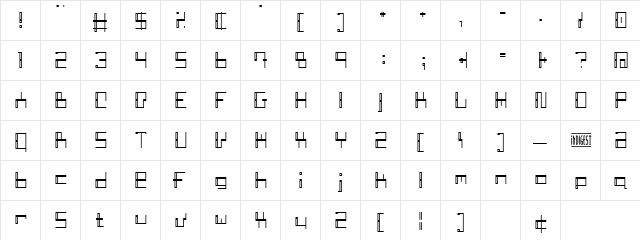
Stat Normal
Design Context for Stat Typeface
Stat is a composed and adaptable typeface that performs quietly and consistently across a wide range of design contexts.